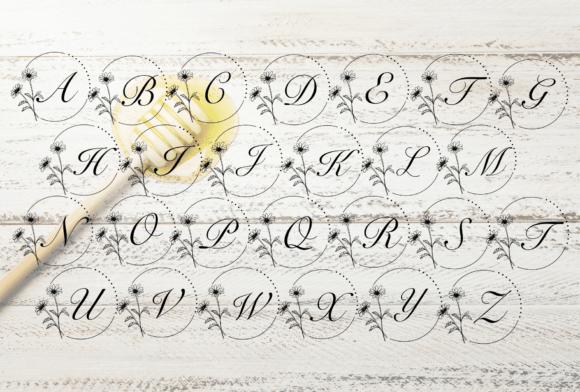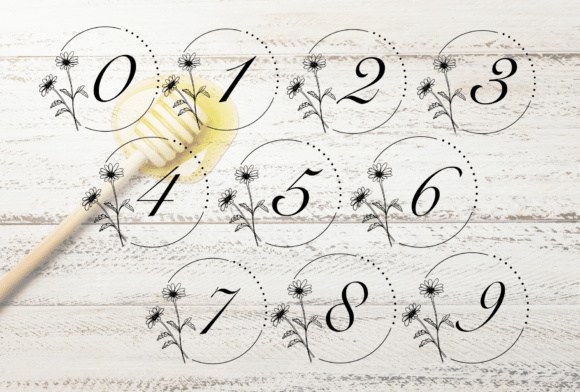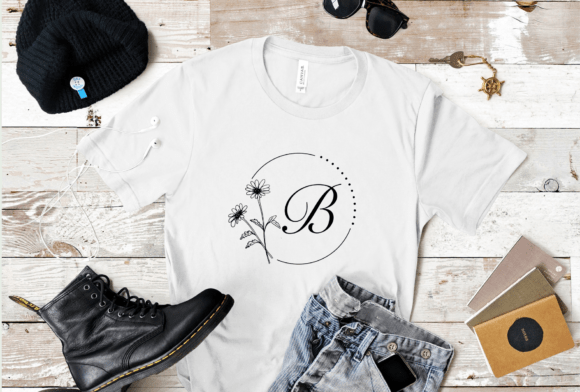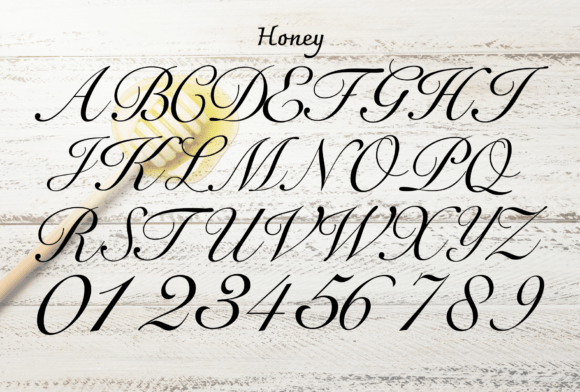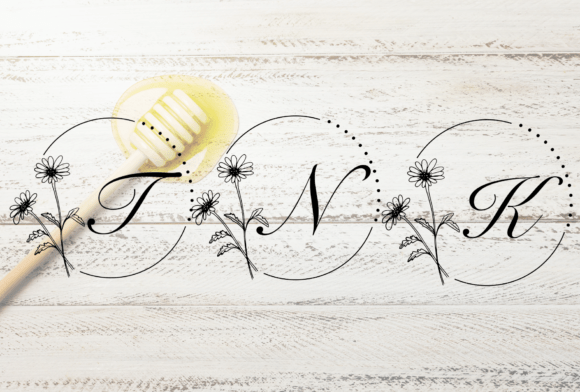
There’s something magical about the first sketch of a new design project – the blank page, the spark of inspiration, and the rush of creativity as it begins to take shape. For many of us, it’s a moment we live for, a time to let our imagination run wild and our skills shine. And for those looking to create something truly special, the Honey Monogram Font is the perfect tool to bring their vision to life.
This delicate script monogram font is adorned with elegant floral accents and graceful curves, making it the perfect choice for wedding stationery, feminine branding, and artisan packaging. Whether you’re a seasoned designer or just starting out, the Honey Monogram Font is a valuable addition to your toolkit, offering a unique and timeless look that’s sure to impress.
Honey Monogram Font Key Features
- Unique Characteristics: The Honey Monogram Font features a beautiful, handwritten script with intricate details and flourishes, making it perfect for adding a touch of elegance to designs.
Honey Monogram Font Review
Honey Monogram Font is a beautiful, elegant script font that shines ✨ in the right context. Its intricate details and flowing lines make it perfect for invitations, wedding stationery, and other formal events. The font’s versatility also allows it to work well in a variety of digital and print applications, from logos to packaging design.
Here are some of the font’s notable strengths:
- ✨ Elegant and sophisticated design
- ✨ Highly customizable through OpenType features
- ✨ Supports a wide range of languages
- ✨ Works well in both digital and print applications
- ⚠️ May be difficult to read in certain font sizes or contexts
- ⚠️ Can be quite dense, making it hard to pair with other fonts
Overall, Honey Monogram Font is a stunning addition to any designer’s toolkit. While it may have some limitations, its unique charm and elegance make it well worth exploring. Just be sure to use it thoughtfully and in contexts where its strengths can shine through.
Use Honey Monogram Font to add a touch of elegance to your designs, especially for wedding invitations, monogrammed gifts, and branding materials. Experiment with different font sizes and colors to create a unique look.
Honey Monogram Font is ideal for:
– Monogrammed gifts and accessories
– Branding materials, such as logos and business cards
– Stationery and letterheads
Alternatives to Honey Monogram Font
1. Lobster
Lobster is a beautiful, elegant script font perfect for creating a sophisticated and luxurious look. It’s ideal for wedding invitations, branding, and packaging design. Compared to Honey Monogram Font, Lobster has a more refined and cursive feel, making it suitable for high-end designs.
Pacifico is a modern script font with a relaxed, beachy vibe. It’s perfect for designs that require a touch of elegance and sophistication without being too formal. Compared to Honey Monogram Font, Pacifico has a more open and airy feel, making it ideal for designs that need a sense of calmness.
Great Vibes is a beautiful, handwritten font with a unique and eclectic feel. It’s perfect for designs that require a touch of personality and whimsy. Compared to Honey Monogram Font, Great Vibes has a more playful and organic feel, making it suitable for designs that need a sense of fun and spontaneity.
Alex Brush is a elegant, script font with a classic and sophisticated feel. It’s perfect for designs that require a touch of refinement and luxury. Compared to Honey Monogram Font, Alex Brush has a more refined and polished feel, making it suitable for high-end designs that need a sense of elegance and sophistication.